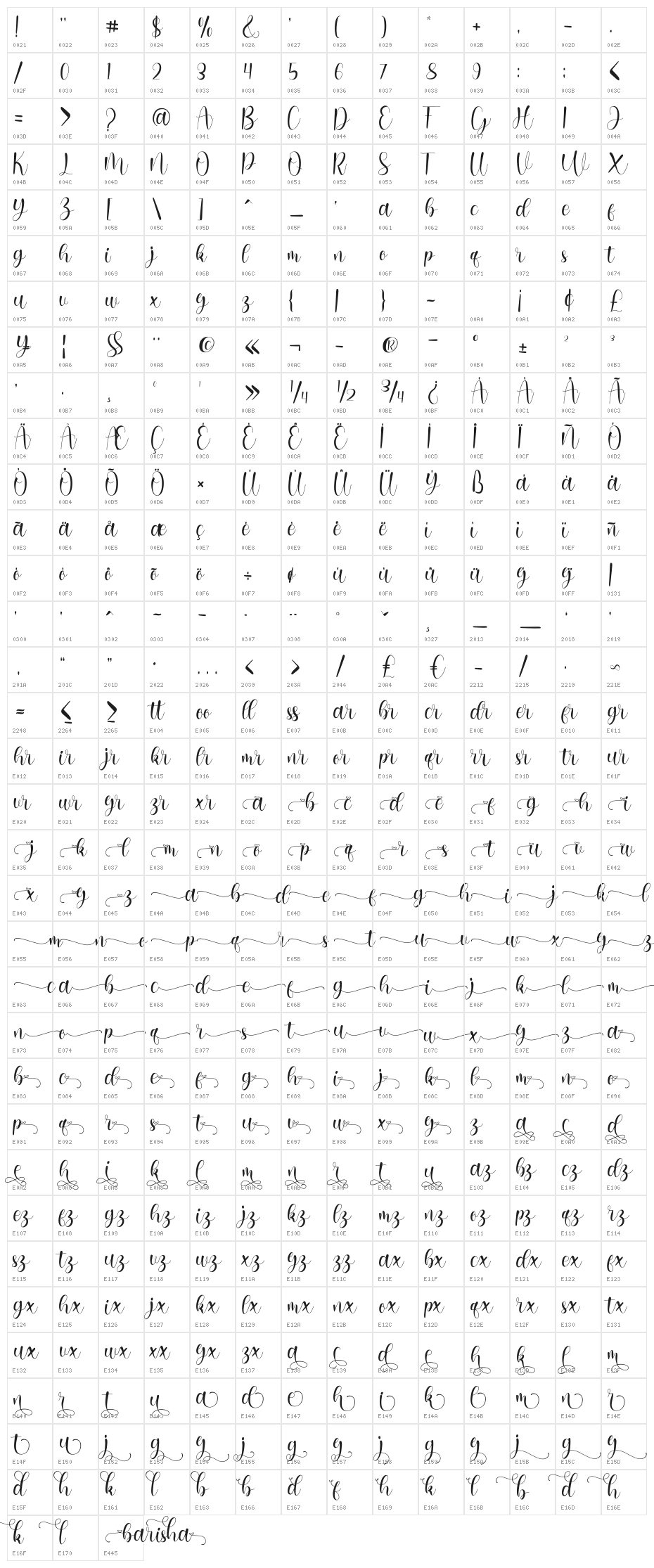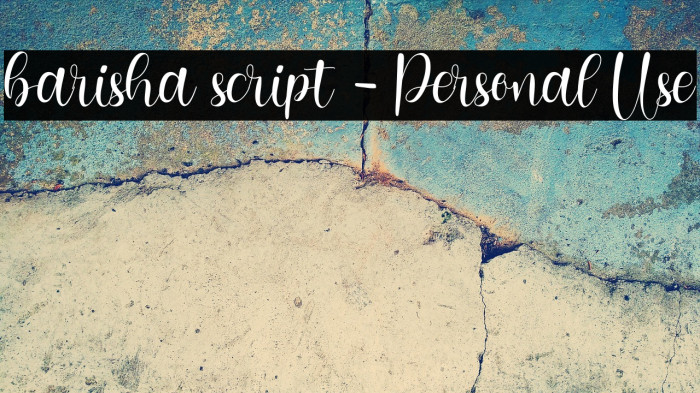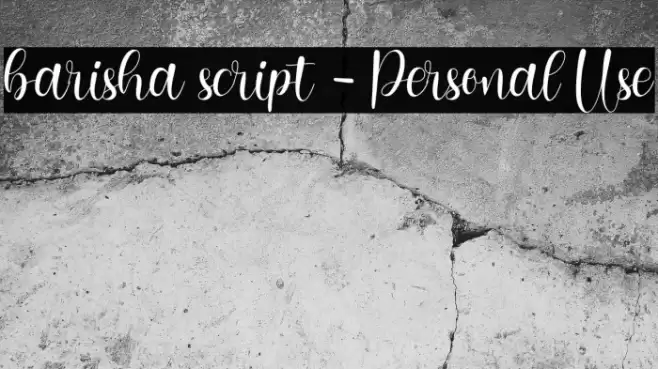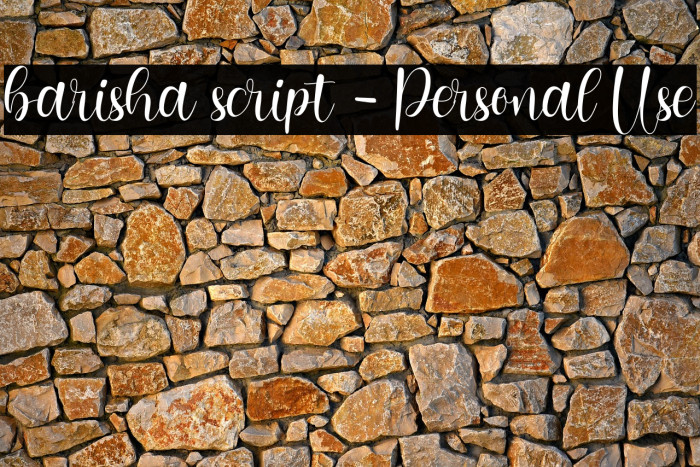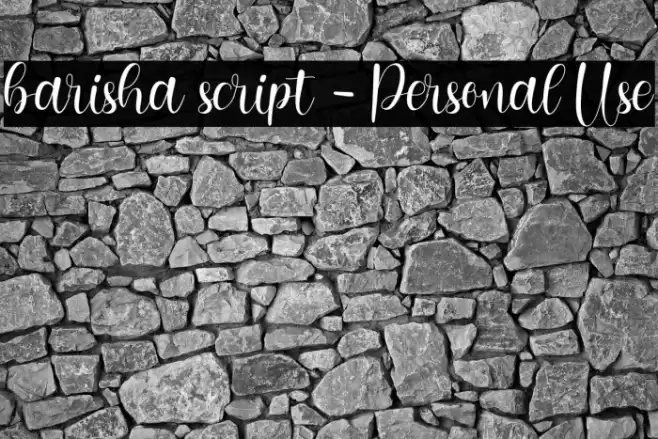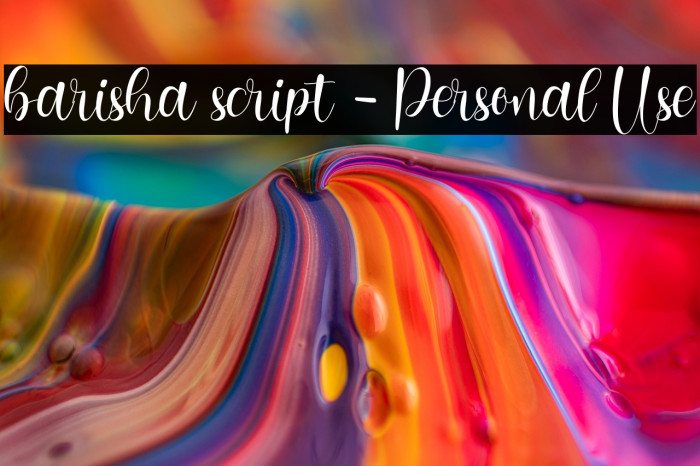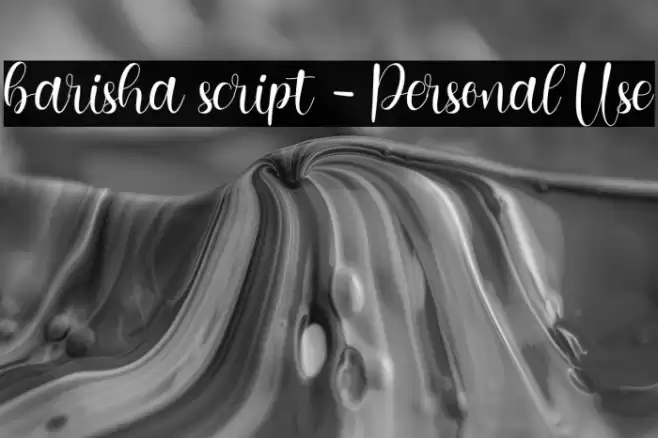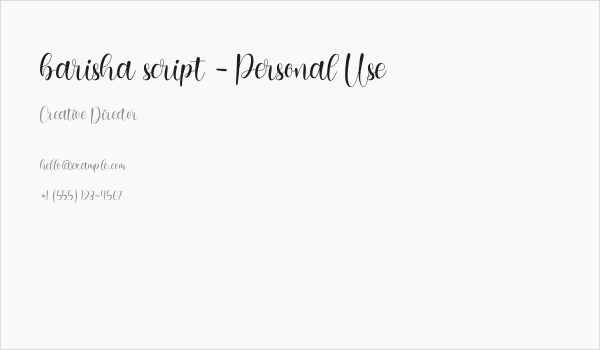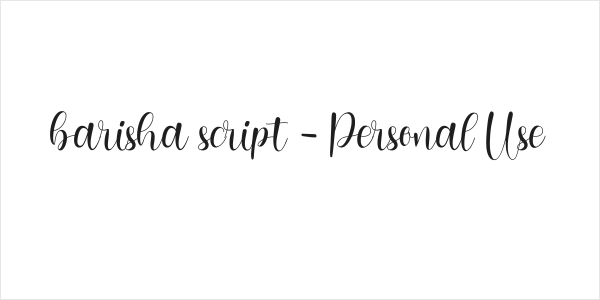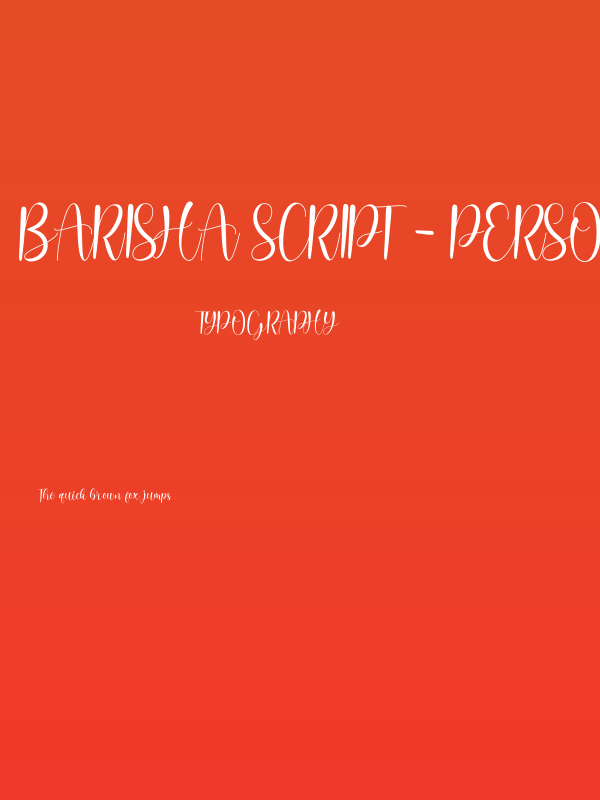
barisha script - Personal Use Font
barisha script - Personal Use Description
This elegant script font features flowing, interconnected letters with a calligraphic style. The uppercase characters are tall and graceful, with sweeping curves and loops that add a sense of movement and fluidity. The lowercase letters maintain this fluidity, with some characters featuring unique flourishes that enhance the overall aesthetic. The numerals are consistent with the script style, offering a cohesive look across all characters. Special characters are designed with the same attention to detail, ensuring they blend seamlessly with the rest of the font. This font's artistic flair makes it ideal for creative projects that require a touch of sophistication.
| Use Case | Headlines, Invitations, Branding |
| Proposed Projects | Wedding invitations, greeting cards, branding, and logo design. |